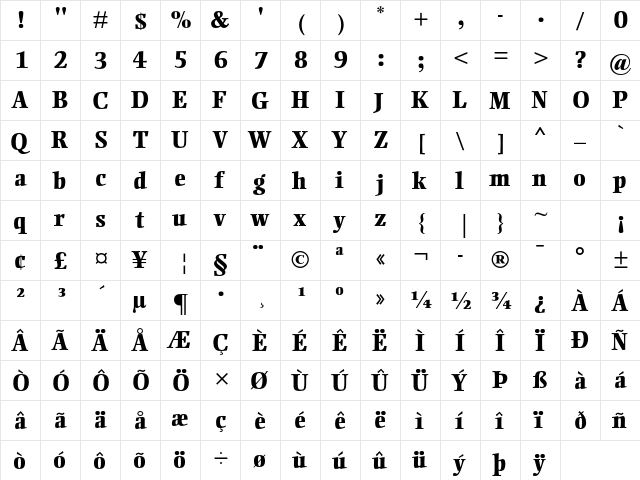
Ellington MT Std Extra Bold
| Designer | Michael Harvey |
Design Context for Ellington MT Std Typeface
Ellington MT Std offers clean, dependable letterforms without strong stylistic allegiance, making it a practical choice for designers who need flexibility. Its bold stroke weight gives it real presence on the page.
Pro Tip: Pair Ellington MT Std with a font of contrasting weight or personality to build a more expressive typographic hierarchy.